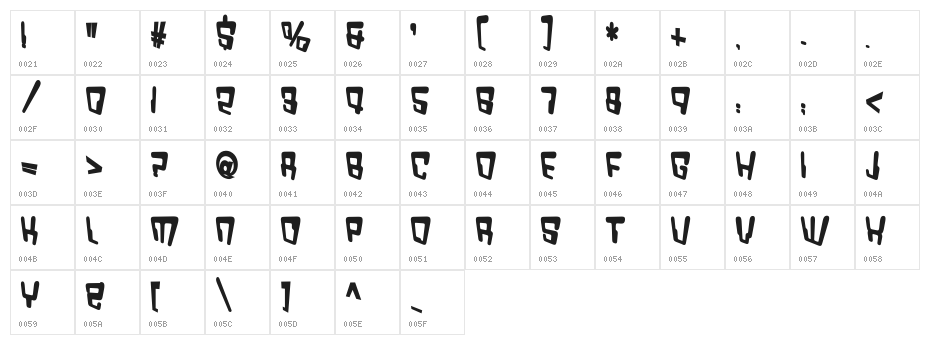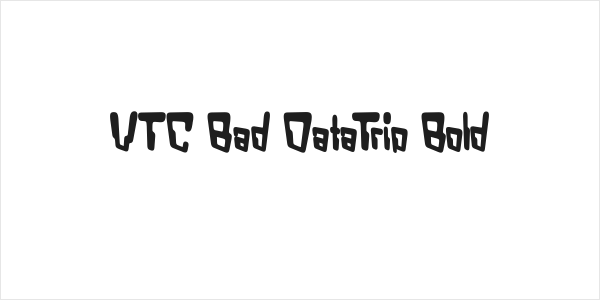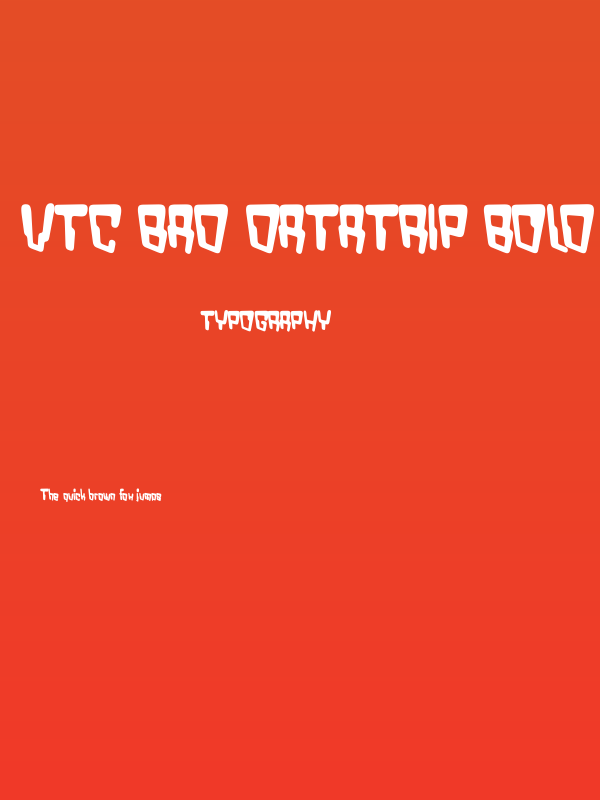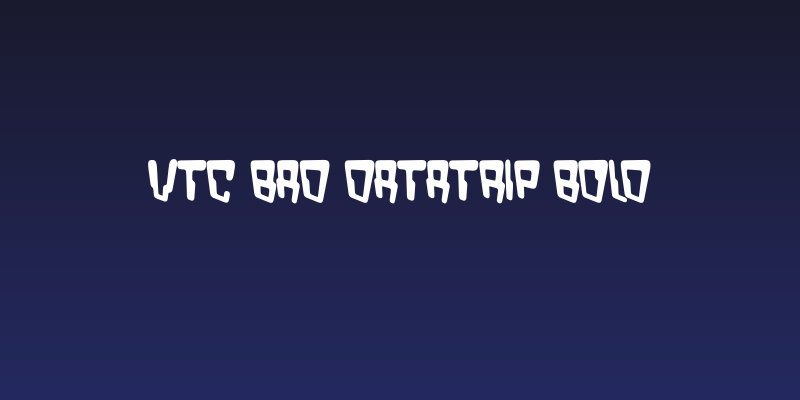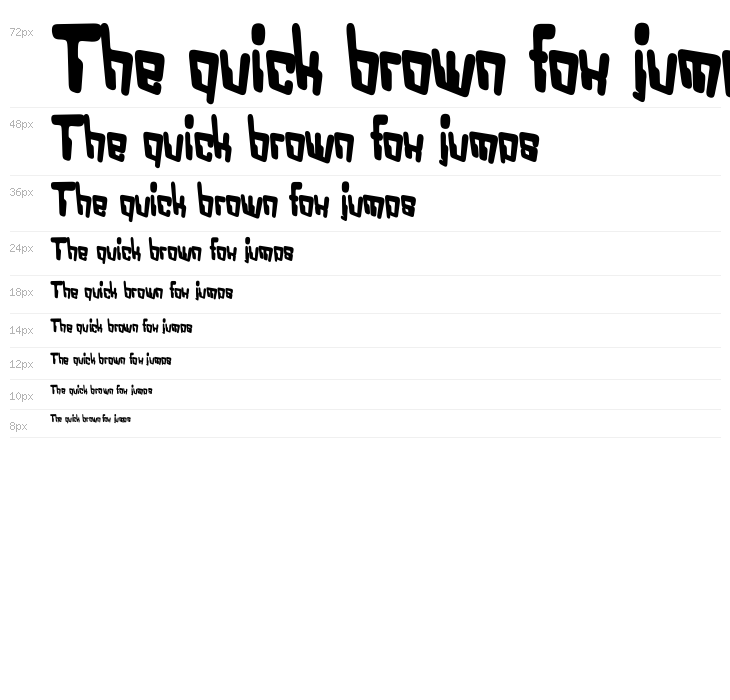
VTC Bad DataTrip Bold Font
VTC Bad DataTrip Bold Description
This font features a bold and dynamic style with a distinctly futuristic and digital appearance. The characters are formed with thick, rounded edges and a slightly distorted, irregular shape that gives them a unique, edgy look. The uppercase and lowercase letters maintain a consistent style, with the lowercase being slightly smaller but equally bold. Numbers and special characters follow the same design principles, ensuring uniformity across all glyphs. The font's playful and unconventional design makes it stand out, ideal for projects that require a modern and tech-inspired aesthetic.
Proposed ProjectsIdeal for tech-themed posters, video game graphics, digital art projects, and modern branding.